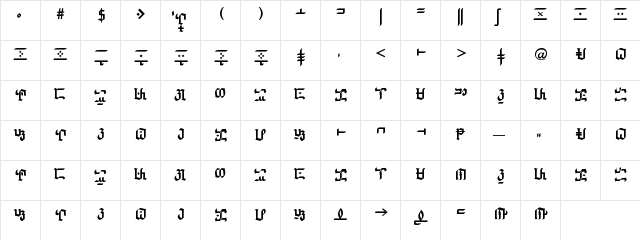
Maharlikang Tagalog Simplified Regular
Design Context for Maharlikang Tagalog Simplified Typeface
Maharlikang Tagalog Simplified is a composed and adaptable typeface that performs quietly and consistently across a wide range of design contexts.